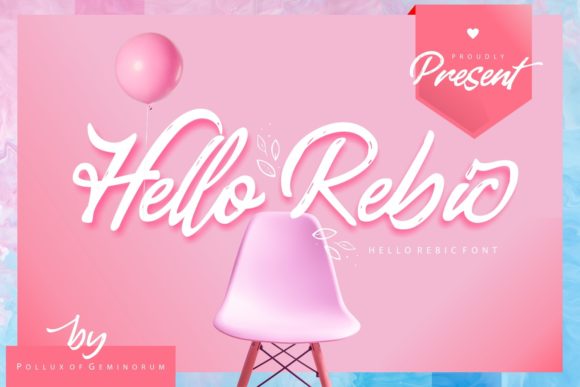
Download Hello Rebic, the enchanting script font that will bring life to your creative endeavors! Its playful characters pirouette across the page, captivating the eye with their whimsical charm.
Let Hello Rebic elevate your words and turn them into captivating works of art, perfect for book covers, invitations, and any project yearning for a touch of magic. With its PUA encoding, you can effortlessly unleash a world of glyphs and swashes, transforming your designs into enchanting masterpieces.
Indulge in the joy of creating with Hello Rebic! Its versatility knows no bounds, as it effortlessly complements a myriad of styles, from classic to contemporary. Experience the transformative power of this font and allow it to ignite your imagination, leaving an unforgettable impact on all who behold your creations. Dive into the world of Hello Rebic and discover the boundless possibilities it holds!